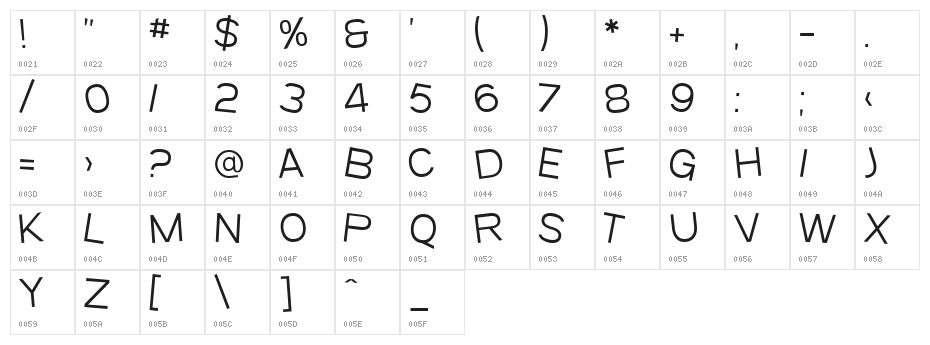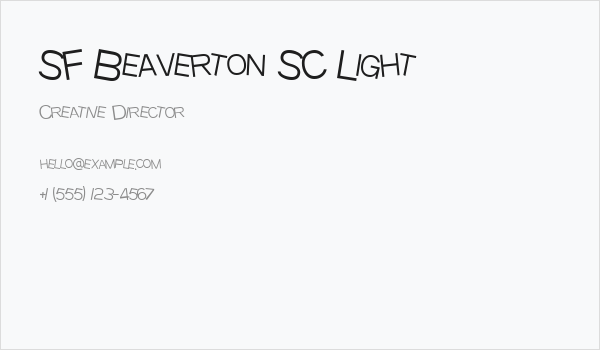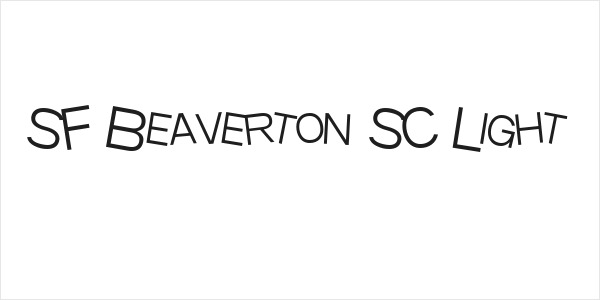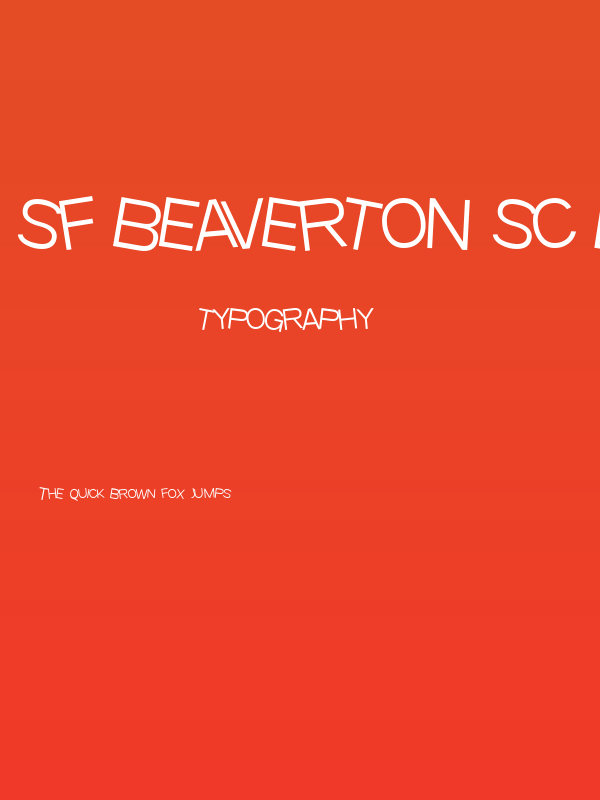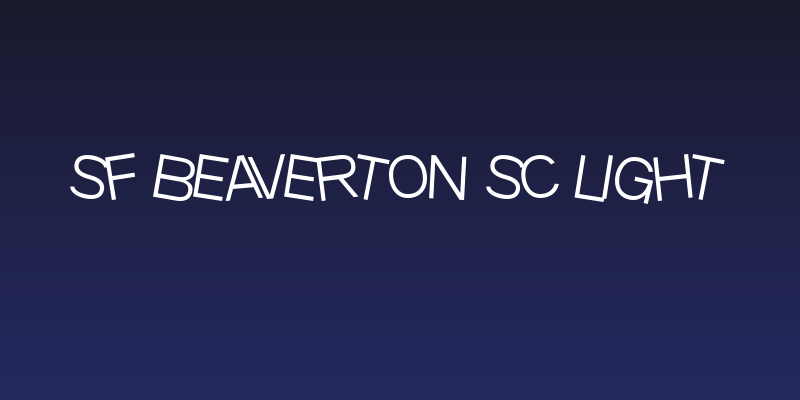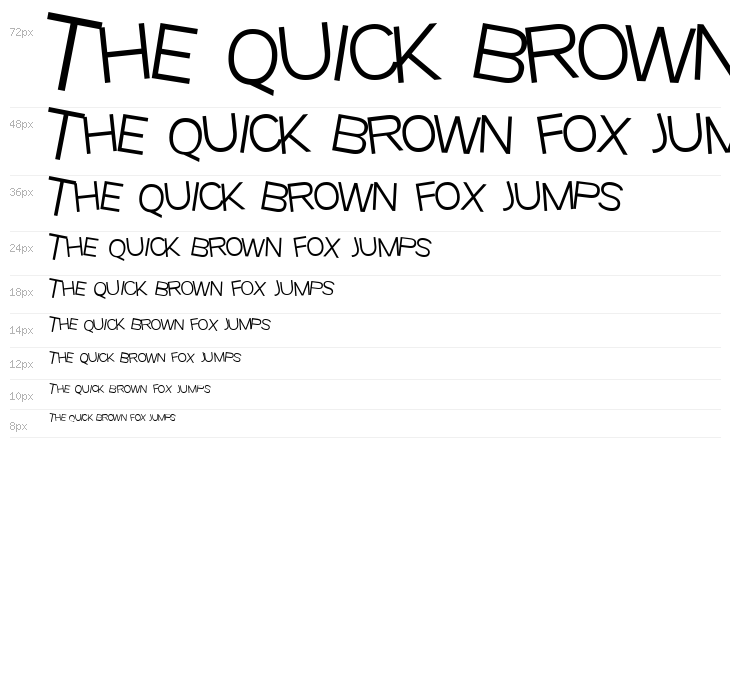
SF Beaverton SC Light Font
SF Beaverton SC Light Description
This font features a playful and dynamic style with a slightly slanted, casual appearance. The characters are bold and have a unique, hand-drawn quality, making them stand out with a sense of movement and energy. The uppercase and lowercase letters maintain a consistent style, with rounded edges and a slight tilt that adds to the font's whimsical nature. The numbers and special characters follow the same design principles, ensuring uniformity across all glyphs. This font is ideal for projects that require a fun and engaging typeface, such as children's books, playful branding, or creative posters.
| Proposed Projects | Children's books, playful branding, creative posters, informal invitations. |